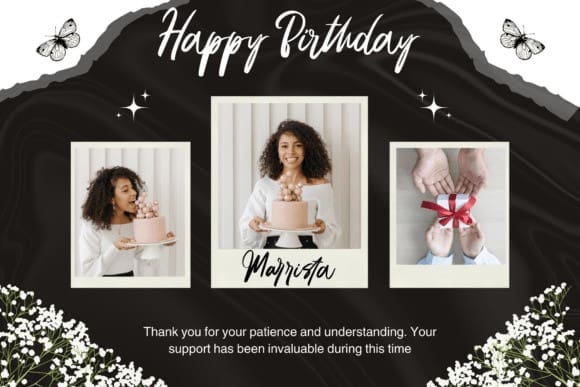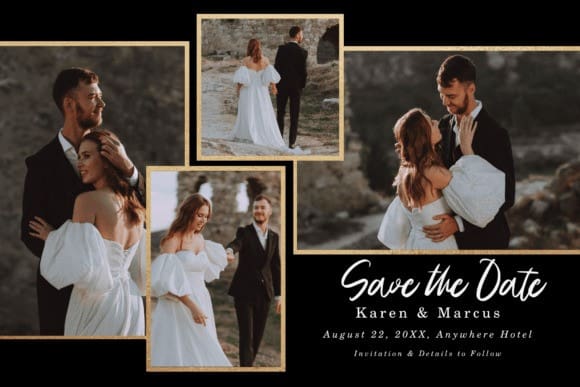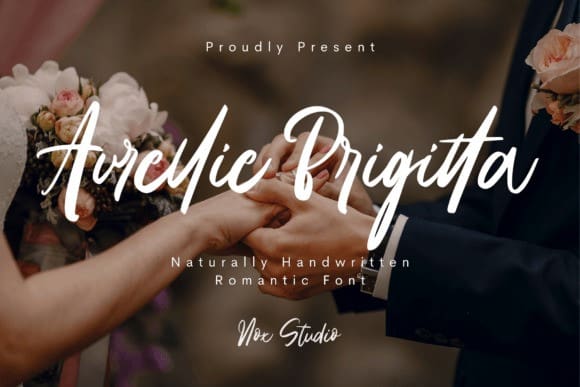
Aurellie Brigitta Font
Aurellie Brigitta Font, a gorgeous script font boasting a unique flair. This meticulously created, hand-scribed typography exudes a tangible authenticity, creating a snug, familiar ambiance. Ideally suited to infuse your Christmas and New Year’s design projects with an artisanal attribute, Aurellie Brigitta is synonymous with elegance and ease. Besides seasonal creativity, it can seamlessly intensify any assignment, injecting undeniable warmth and playful charm into your artistic endeavors.